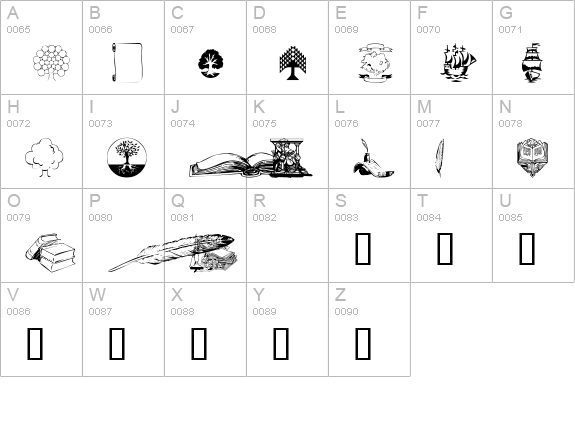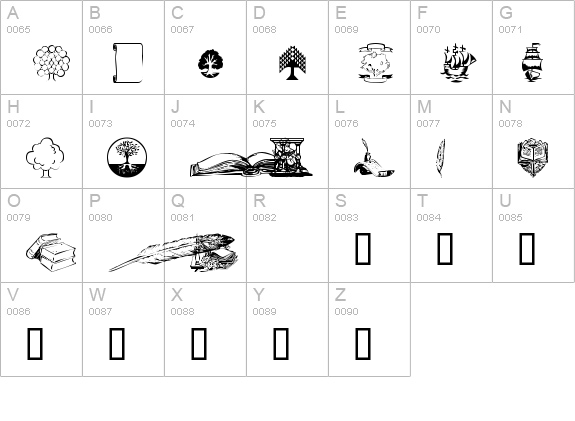
Genealogy 1 Font Details
Genealogy 1 font is a timeless and elegant typeface that exudes sophistication and charm. With its classic and refined design, this font is perfect for adding a touch of elegance to any project. The intricate details and graceful curves of Genealogy 1 font make it a versatile choice for a variety of design applications. What sets Genealogy 1 font apart is not only its beauty, but also its accessibility. This stunning font is freely available to download at FontsMarket.com, allowing you to elevate your design projects without breaking the bank. Whether you're working on invitations, branding materials, or any other creative project, Genealogy 1 font is sure to make a lasting impression. Add a touch of class and elegance to your designs with Genealogy 1 font, the perfect choice for those seeking a timeless and sophisticated typeface. Download it for free today at FontsMarket.com and elevate your design projects with this exquisite font.